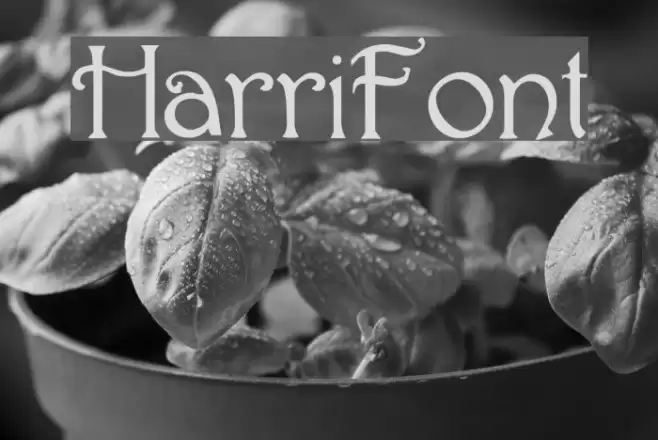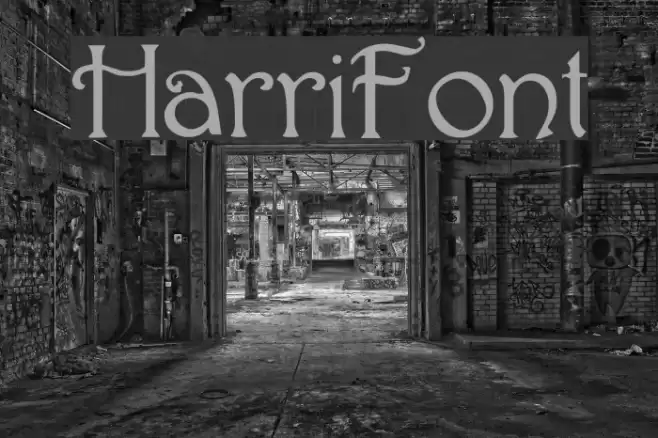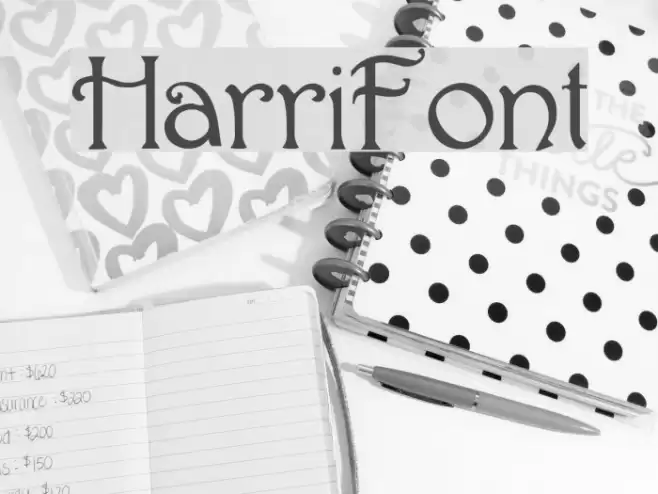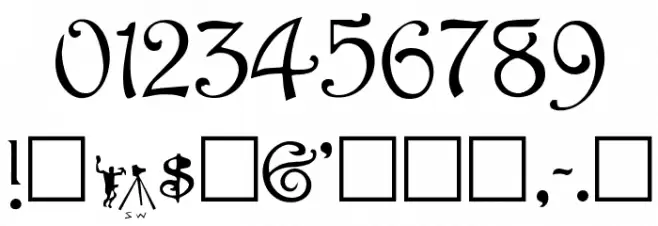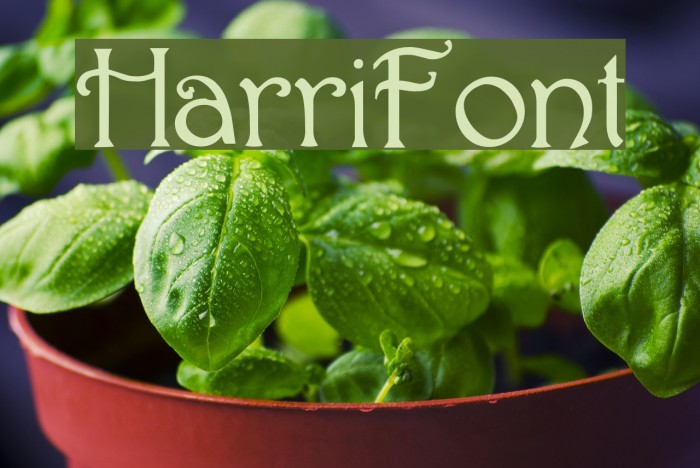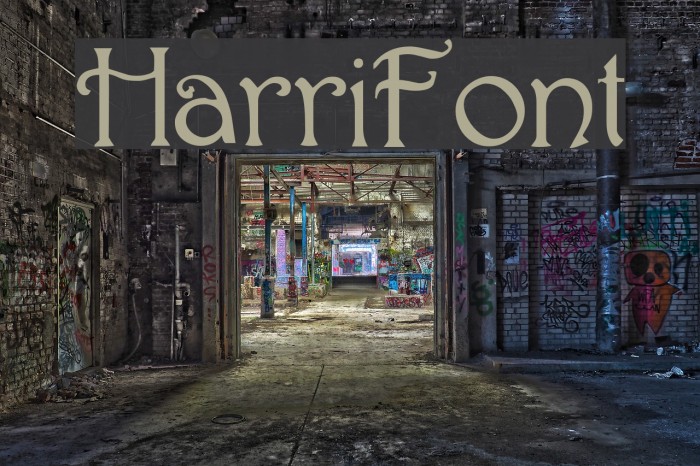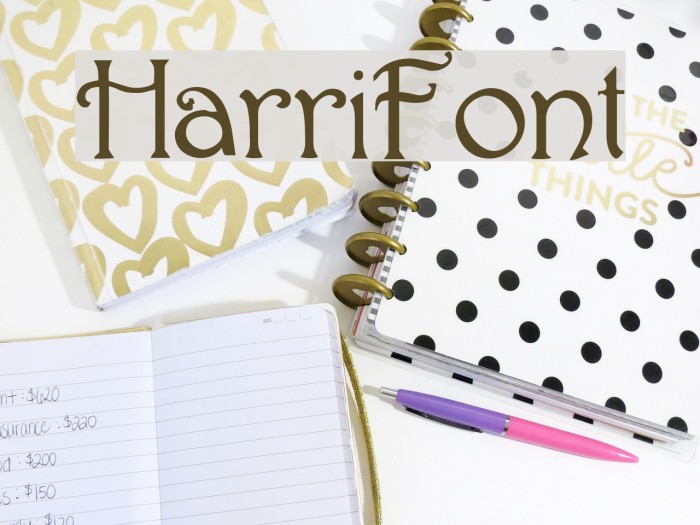
Harri Font
Harri Description
This font features a unique blend of decorative and classic elements, characterized by its elegant, flowing serifs and intricate detailing. The uppercase letters exhibit a distinct flair with swashes and curves that add a touch of sophistication. The lowercase letters maintain a consistent style, with smooth, rounded forms that complement the uppercase. Numbers are crafted with a similar attention to detail, ensuring readability while maintaining the font's artistic appeal. Special characters are thoughtfully designed, integrating seamlessly with the overall aesthetic. This font's intricate design makes it ideal for projects that require a touch of elegance and creativity.
A decorative serif font with elegant swashes and intricate detailing from Uncategorized fonts.
- Proposed Projects: Ideal for wedding invitations, luxury branding, book covers, and artistic posters.
- Use Case: Logos, Headlines, Invitations